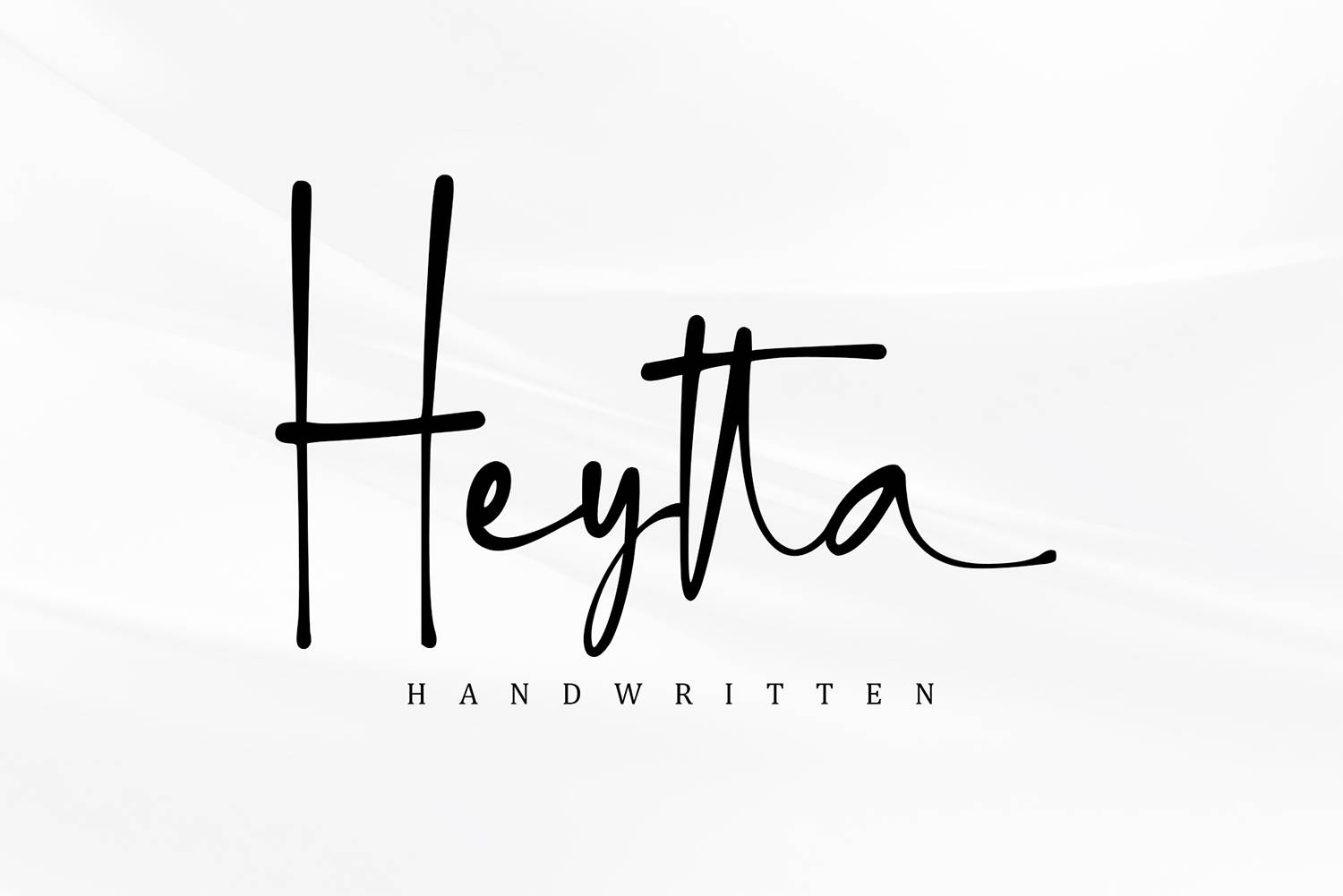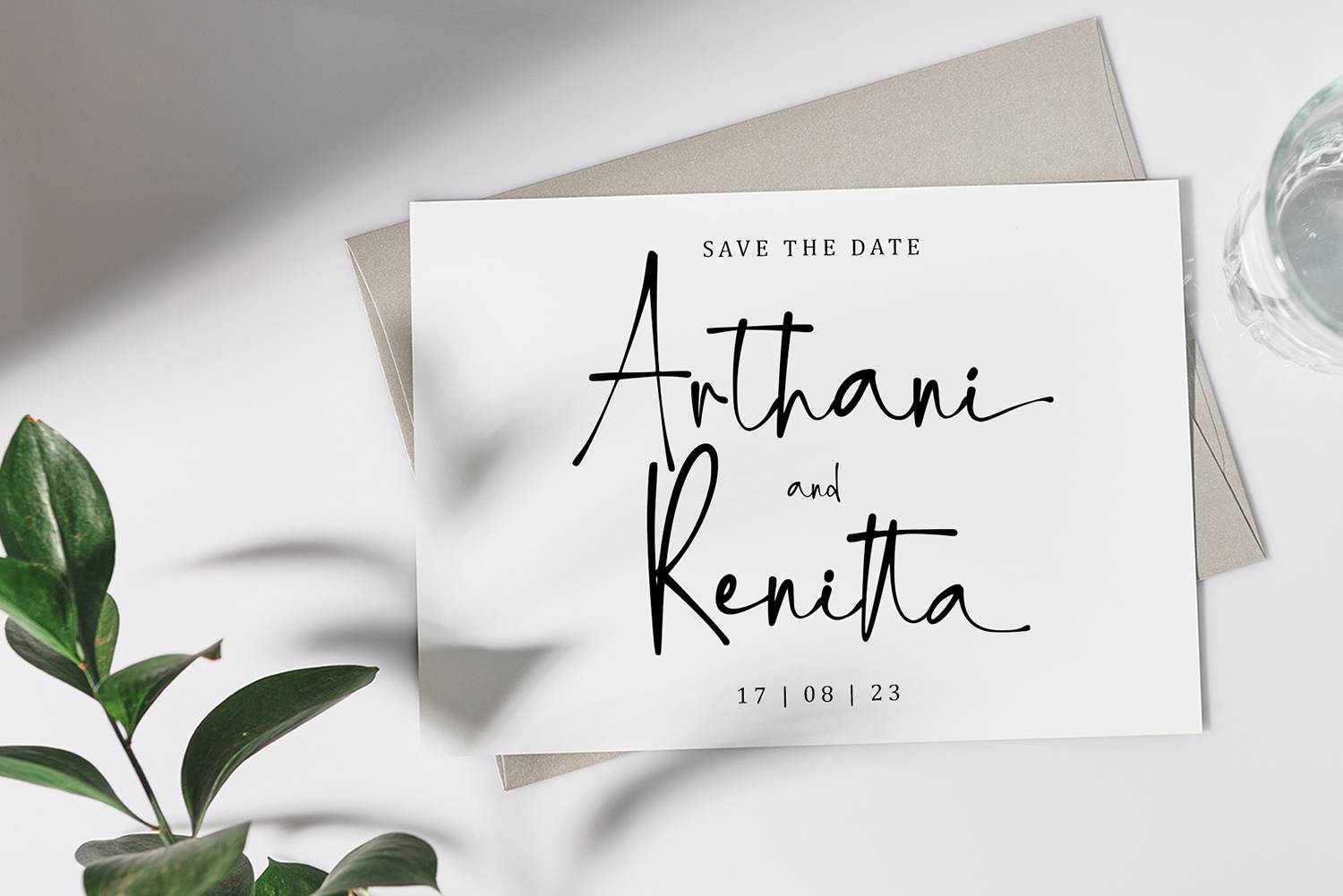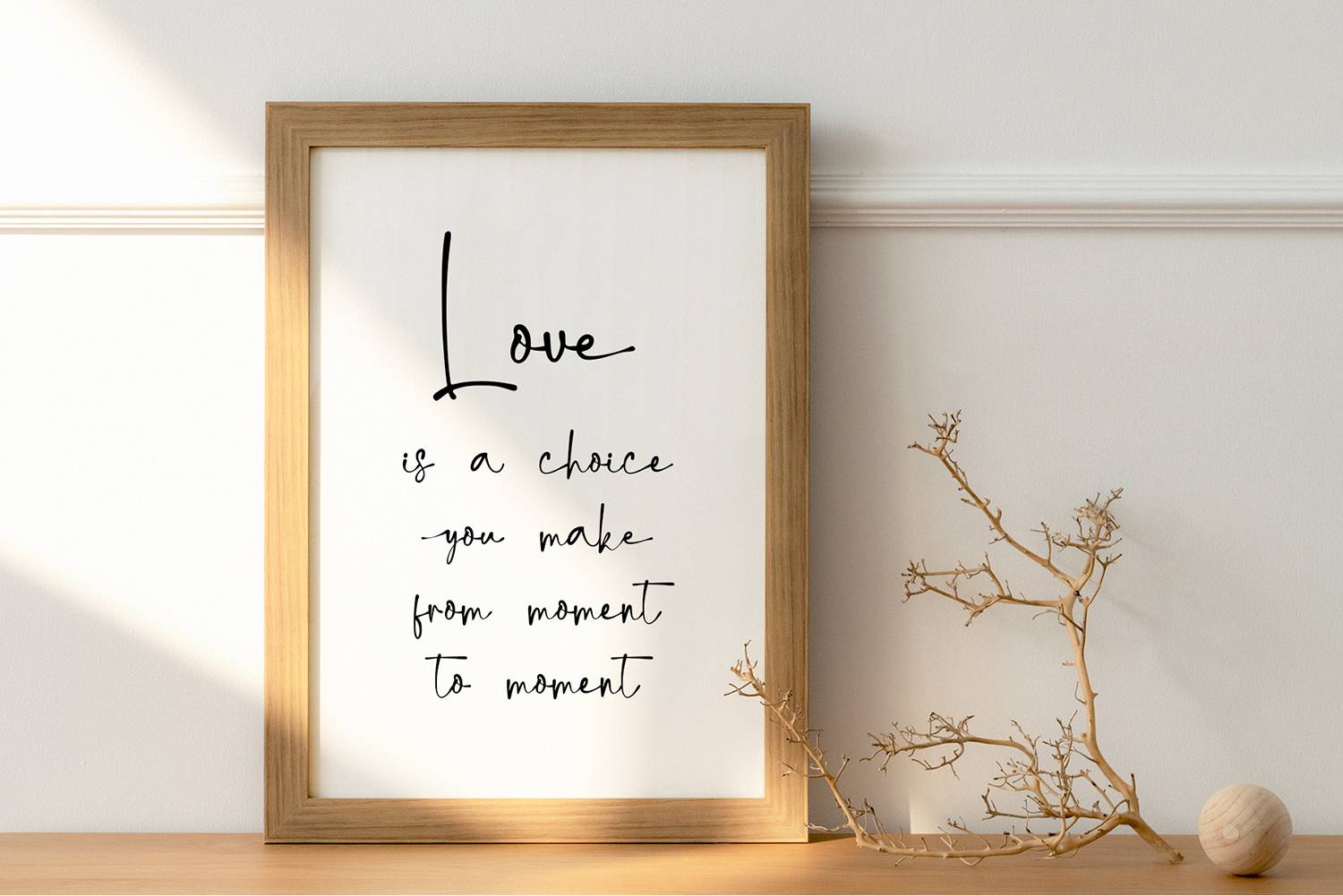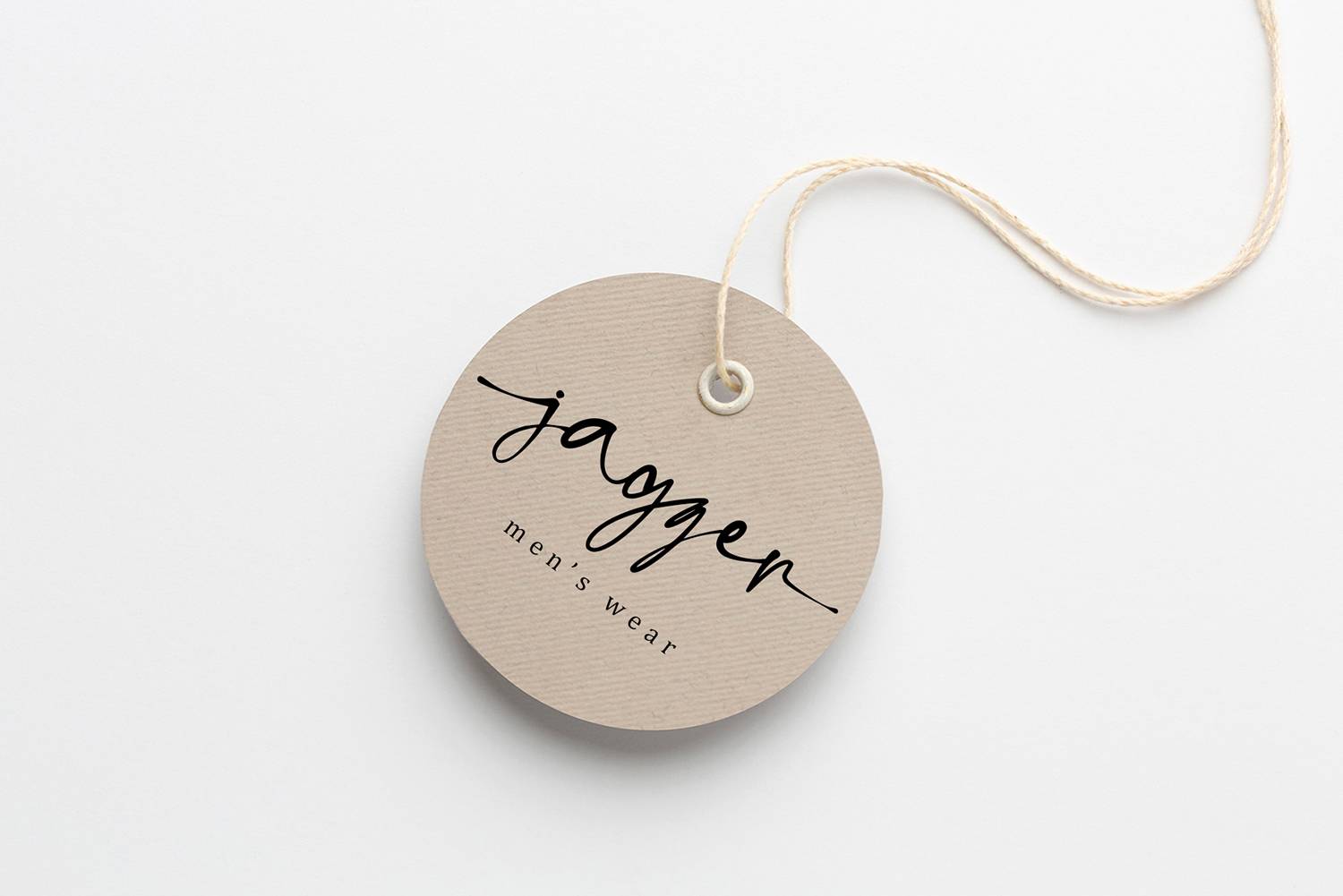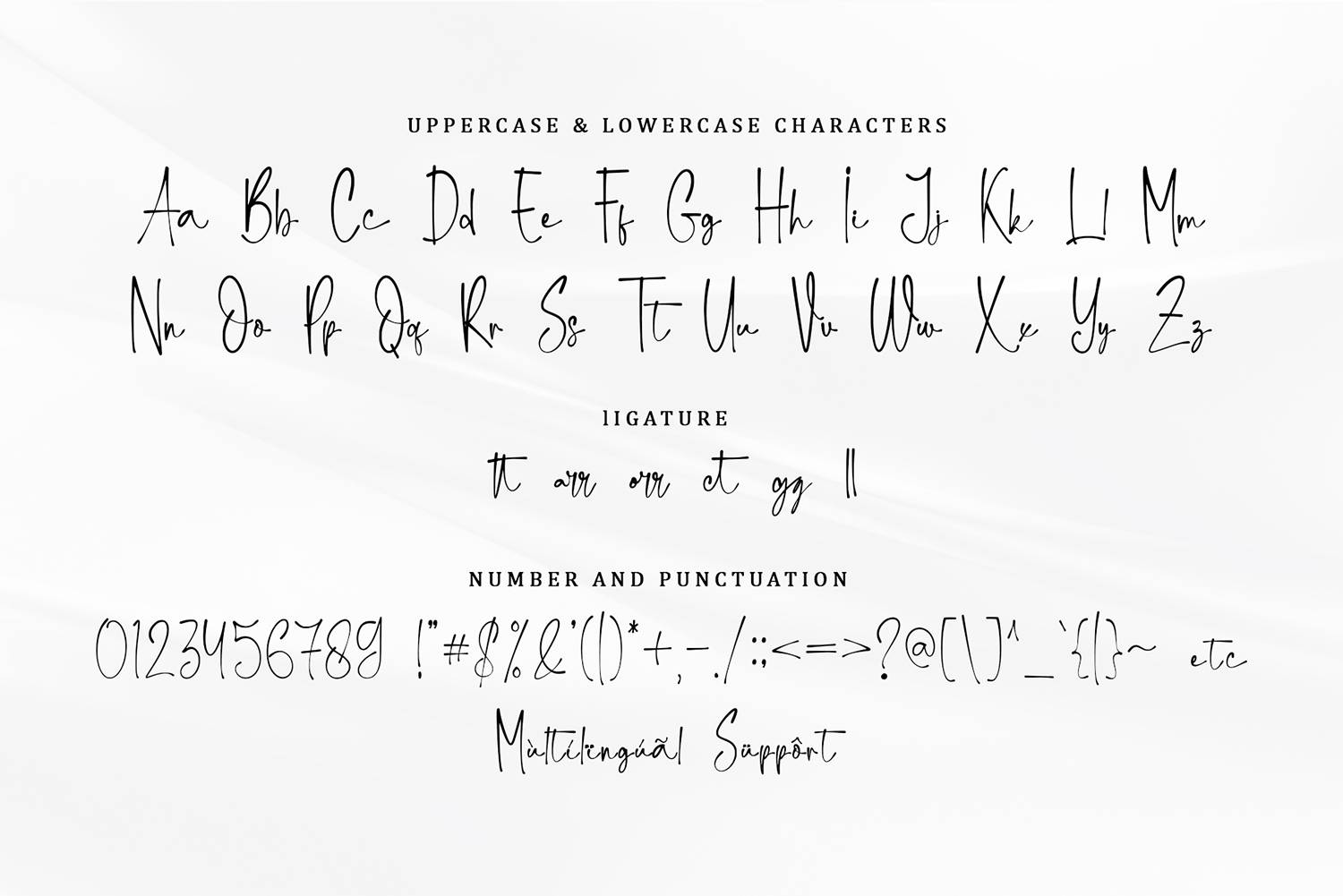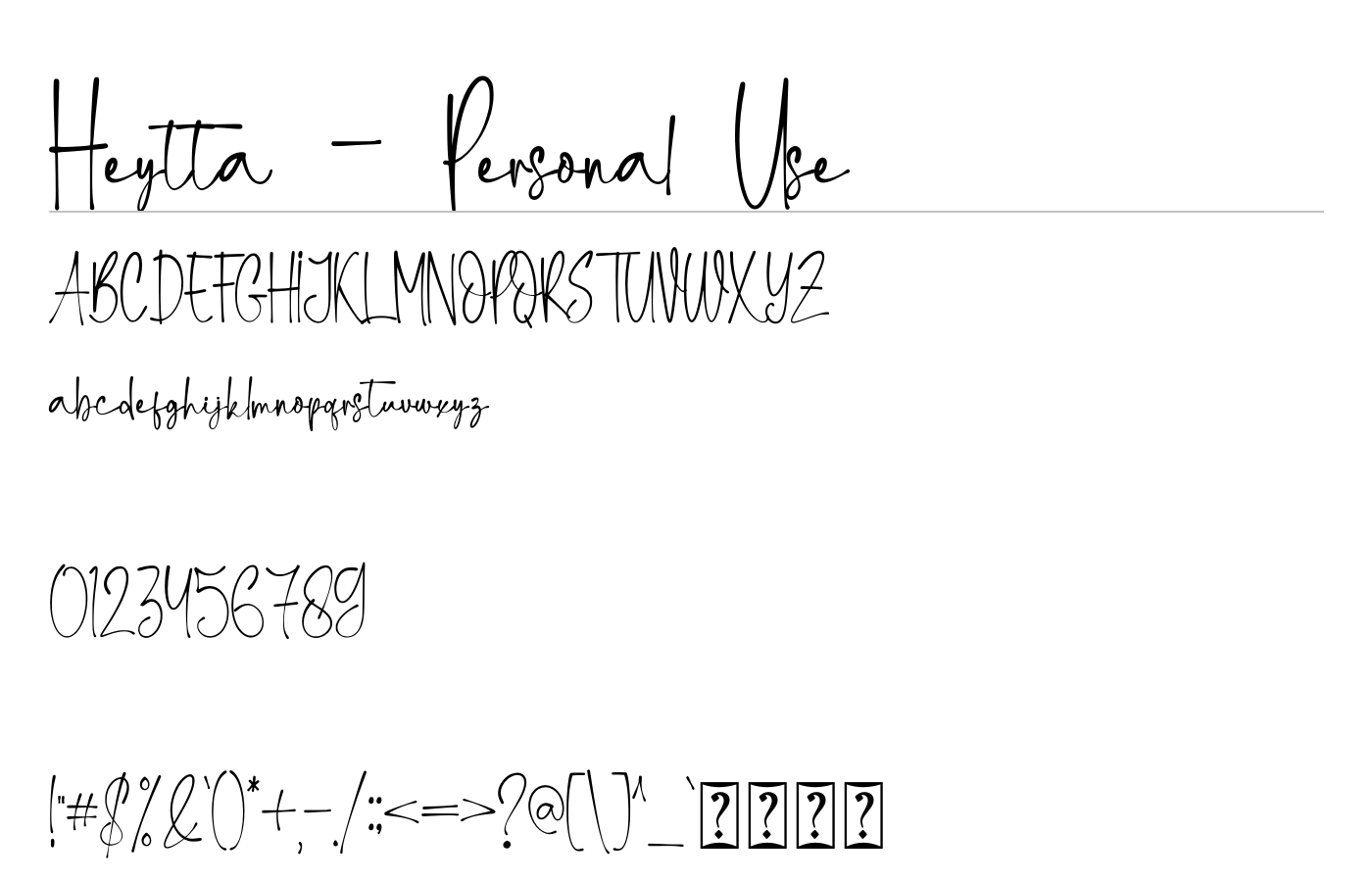
Heytta is a delicate, handwritten script font featuring tall, narrow letterforms with a light, airy feel and playful irregular strokes. Its thin lines and informal style make it perfect for personal projects, invitations, and branding that seeks a friendly, approachable, and creative vibe. This font works best in headlines or decorative text where a casual, whimsical touch is desired.
Heytta Font
About Heytta Font